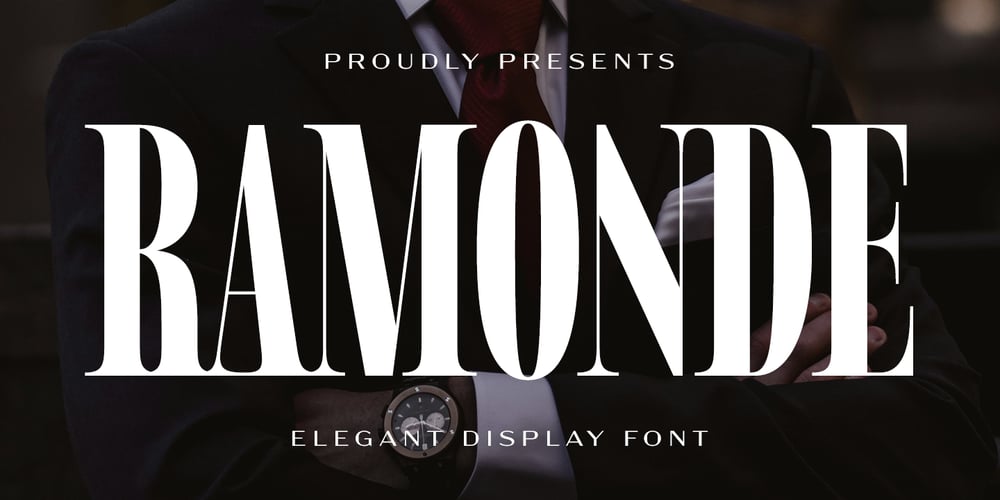
Ramonde Font Family was designed by Novitasari Romli and published by Novitype. Ramonde contains 1 styles and family package options. Introducing Ramonde – a bold and elegant display sans serif font perfect for your creative projects. Inspired by the 90s display fonts used in magazines and newspapers, Ramonde exudes a sense of class and sophistication that will elevate any design.With its condensed and bold style, Ramonde is the perfect choice for headlines, display, magazine, and editorial design. It also works great for labels, logotypes, branding, movie titles, posters, and short quotes.Font featured : Uppercase Lowercase Numbers & punctuation Symbols Ligatures Stylistic alternates Stylistic set 01-04 Multilingual support